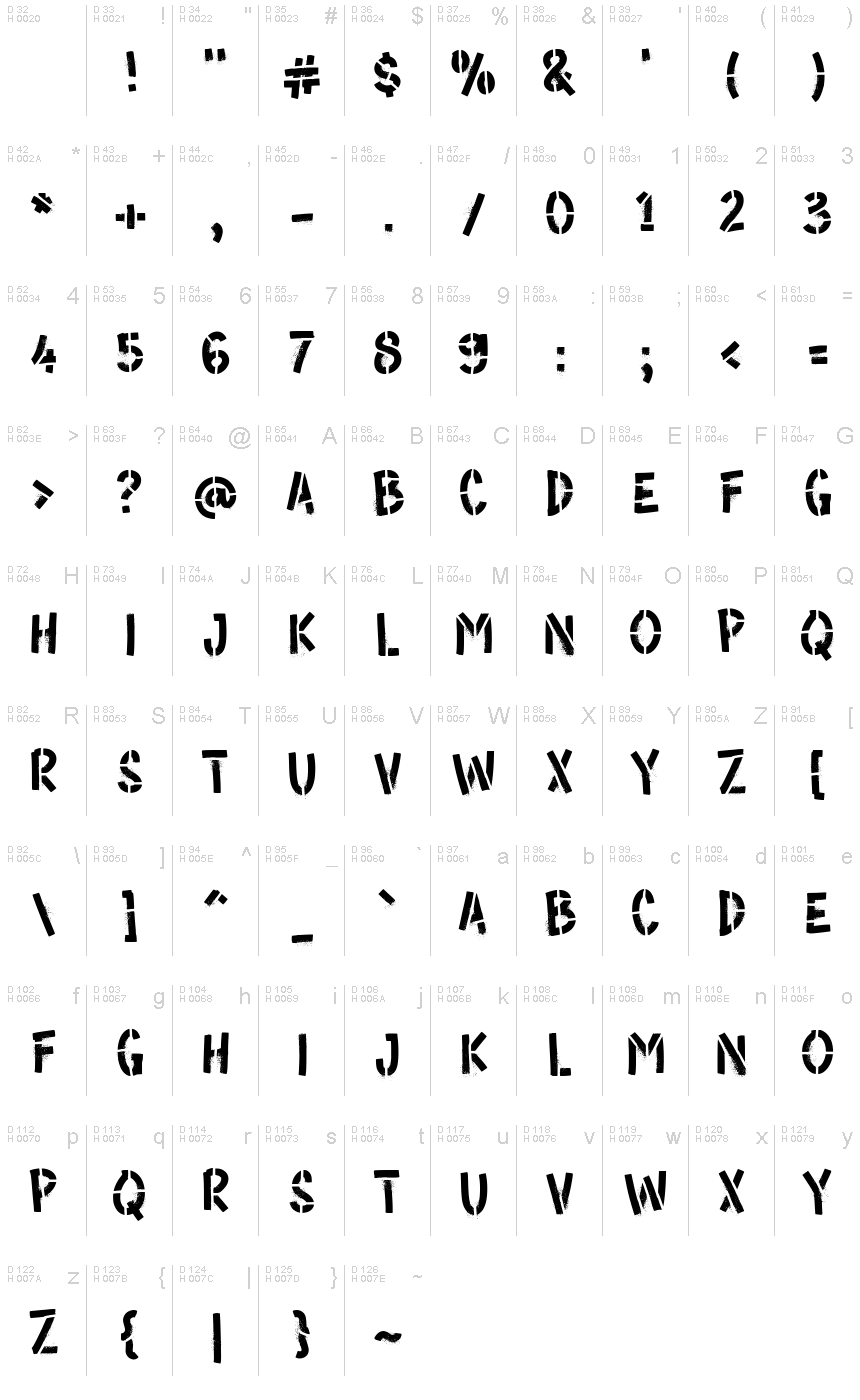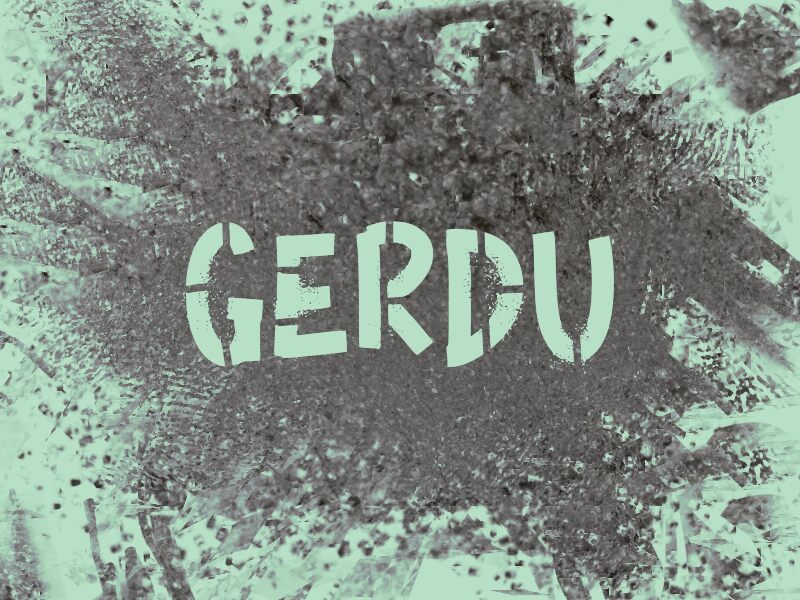
Gerdu
The Gerdu font, designed by wep, commands attention with its bold, condensed letterforms and distinct military-inspired aesthetic. This display font exudes a captivating blend of strength and playfulness, making it a compelling choice for projects seeking a visually striking and impactful typographic presence. The rough, distressed texture of the characters adds a sense of rugged authenticity, while the condensed width contributes to a powerful and commanding visual impact.
Gerdu's versatility shines through its ability to seamlessly integrate into a variety of design contexts, from bold and impactful branding to attention-grabbing headlines and eye-catching advertising. Its comic-inspired style lends itself particularly well to projects seeking a dynamic and energetic mood, such as book covers, posters, and packaging designs. Gerdu's unique characteristics make it a versatile tool for designers looking to create memorable and engaging typographic experiences.